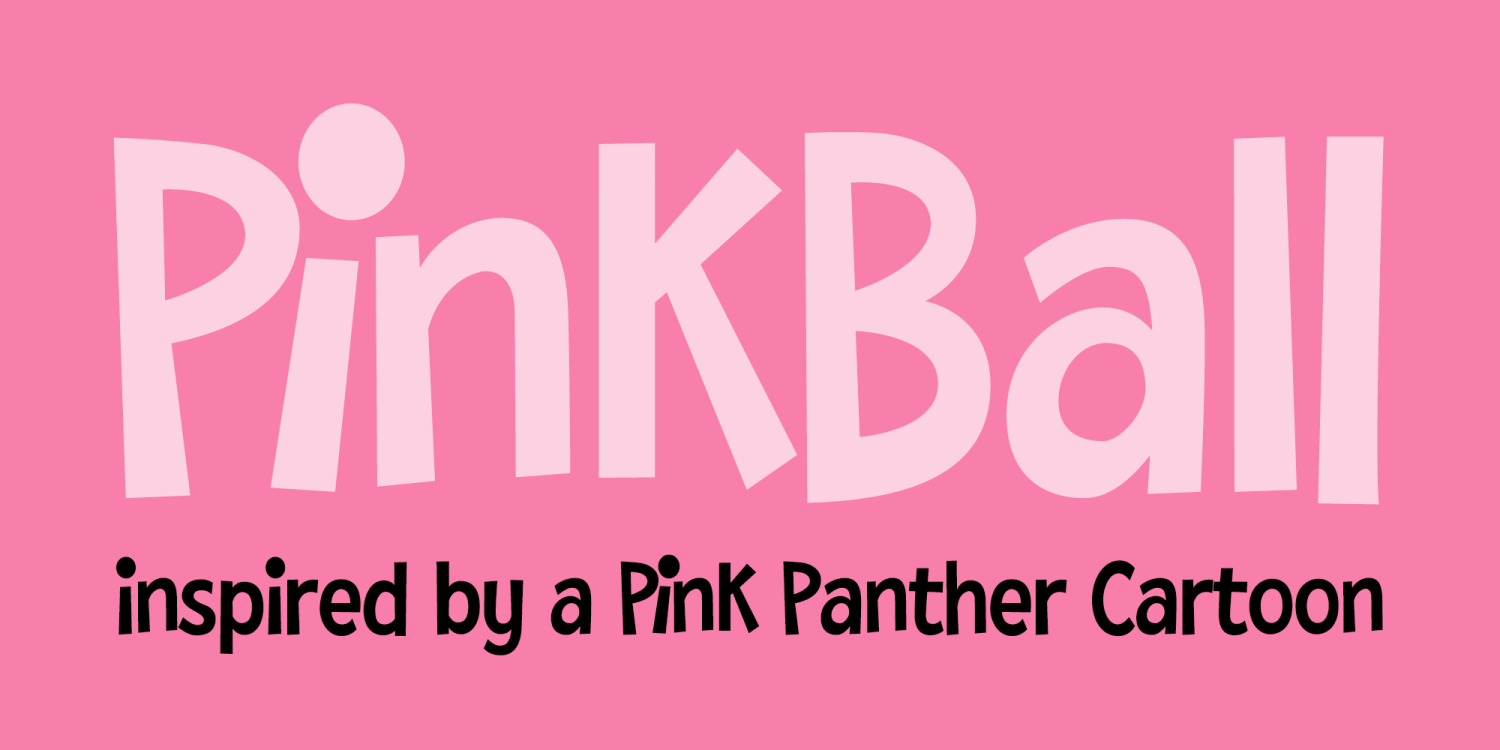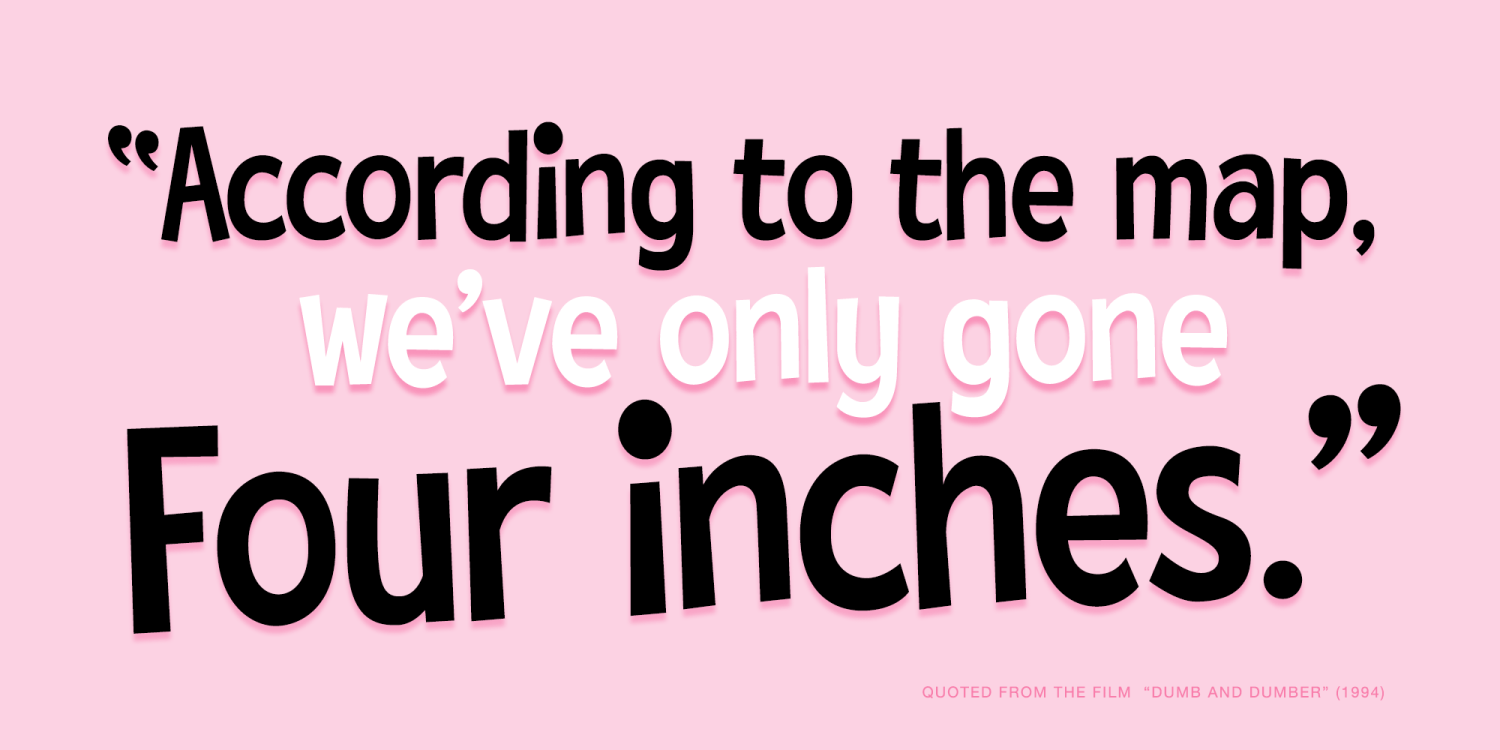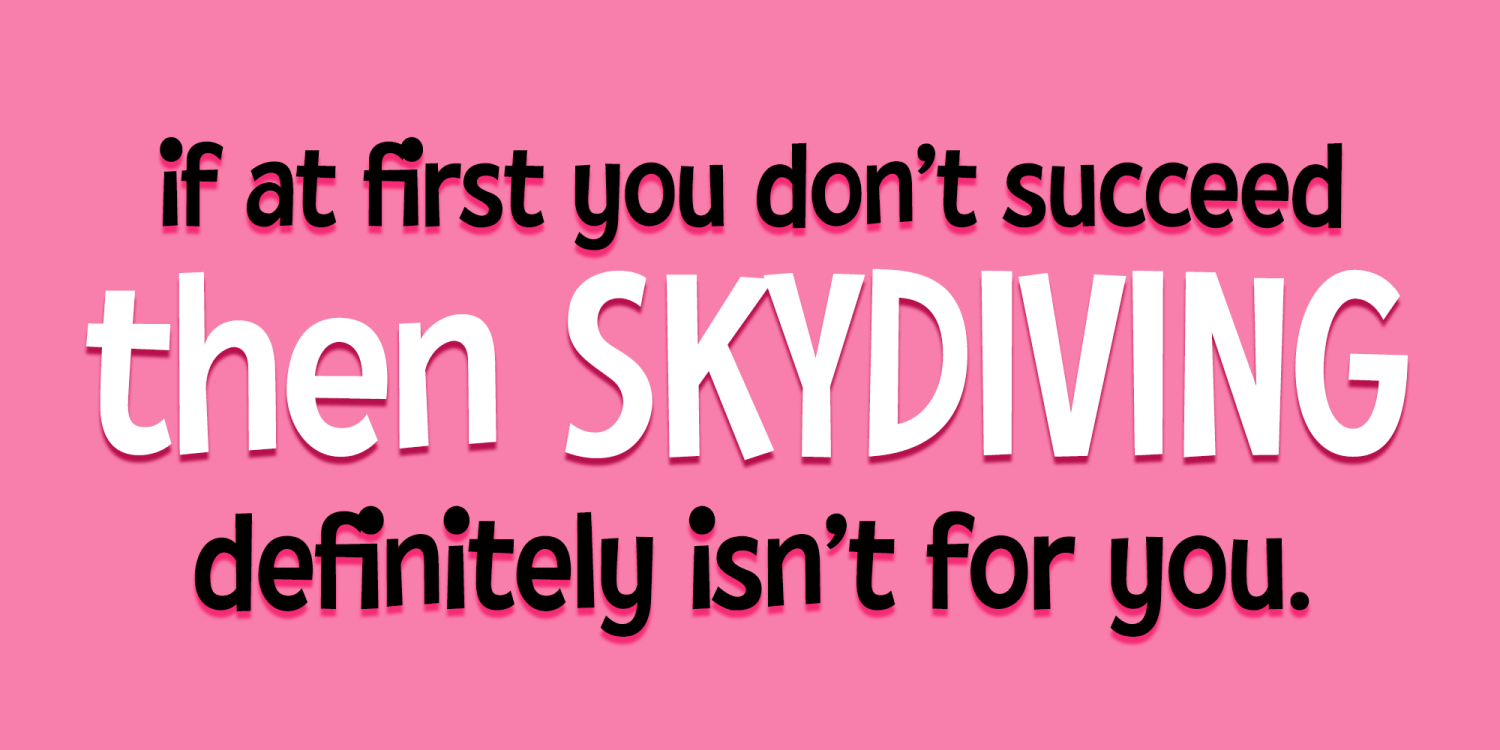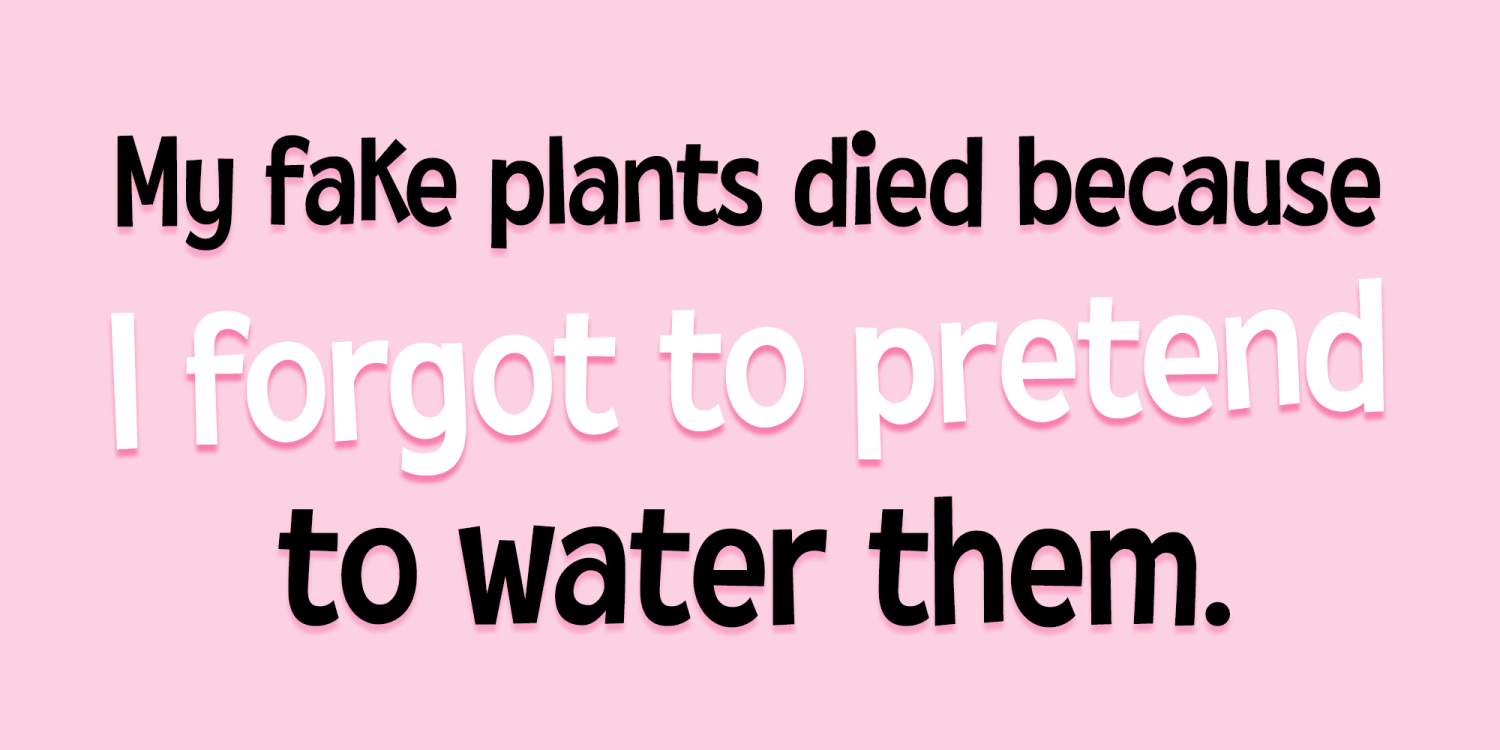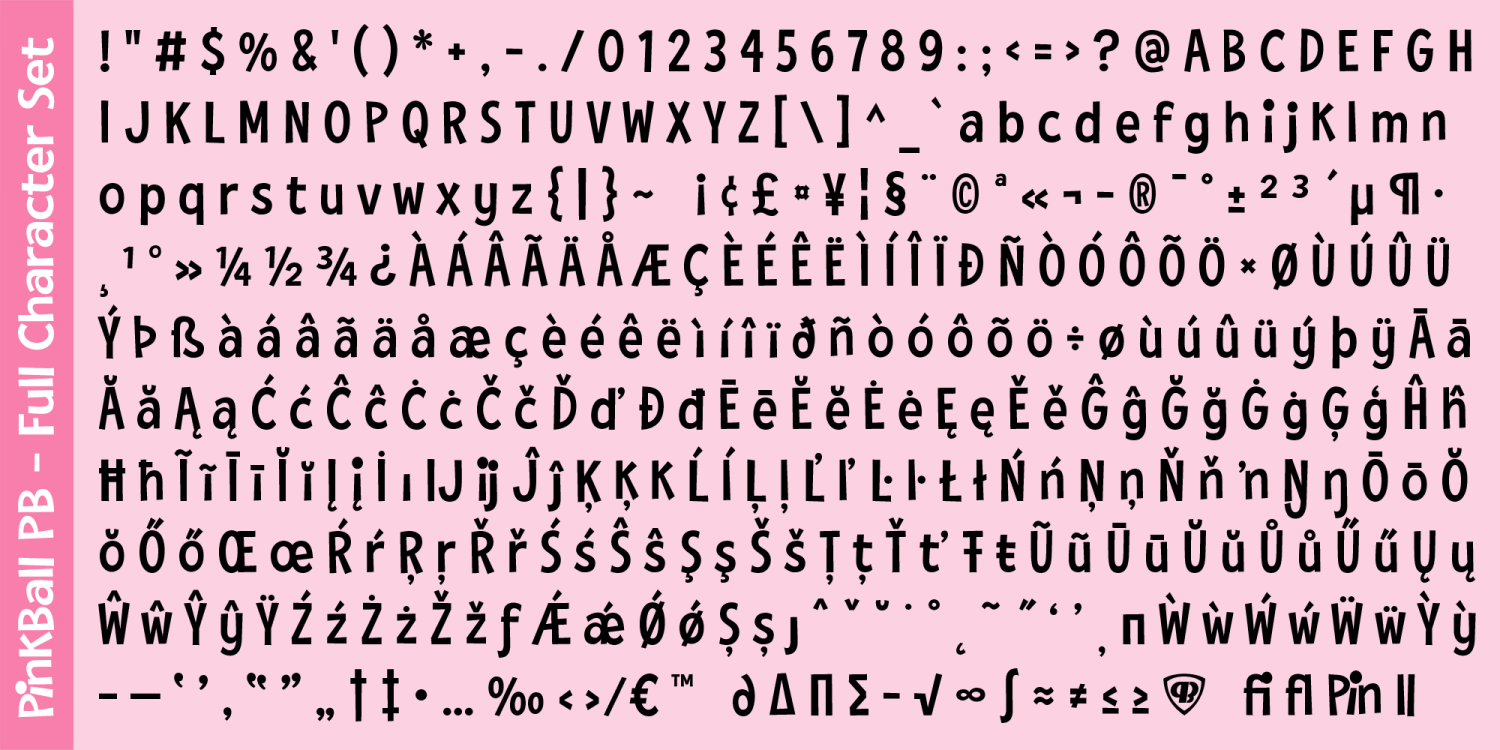
About PinkBall PB
PinkBall PB is a recreation of the title lettering from the Season 9, Episode 1 1972 Pink Panther cartoon episode "Pink 8 Ball". The title lettering has a clean sans-serif styling with a bit of playful bounce and swagger. It's the type of font you'll want to use for any sort of playful advertising and marketing form children's books to toys and packaging. It's just a simple and straightforward fun font to work with.
The PinkBall PB font family includes 386 glyphs.